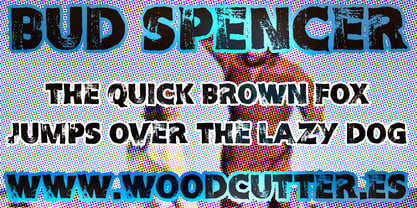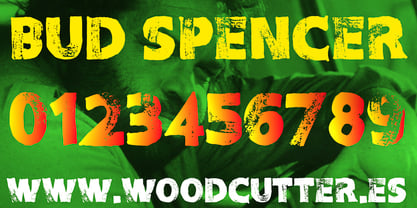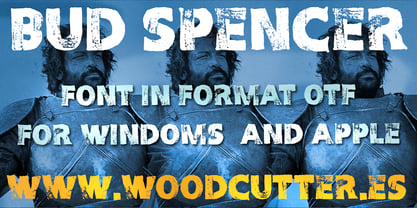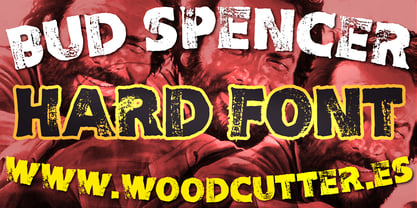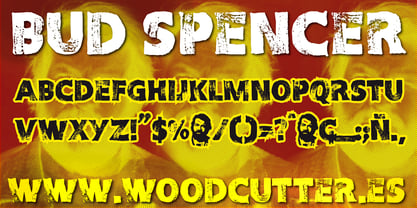
Bud Spencer
by Woodcutter
The Bud Spencer Font Family was designed by Jordi Manero and published by Woodcutter. Bud Spencer contains 1 styles. More about this family
Bud Spencer is an uppercase typeface with accents, featuring bold, wide, and heavy letters that exude raw strength and rugged character. Inspired by classic action cinema and larger-than-life personalities, this typeface looks as if it were painted with a thick brush, leaving visible, imperfect strokes full of texture and motion. Each letter appears worn and powerful, as though time and friction have weathered its surface, giving it an organic, authentic presence. The visual impact of Bud Spencer is immediate: its forms command attention with authority while maintaining a handcrafted feel that sets it apart. Perfect for posters, covers, headlines, or any design that needs a rough, bold attitude, it channels the toughness of manual work and the energy of unrefined strength. Balancing visual solidity with a distressed, textured finish, Bud Spencer stands out as the ideal choice for projects that aim to convey power, grit, and personality. A typeface that doesn’t ask for attention—it demands it, leaving a strong and lasting impression wherever it’s used.